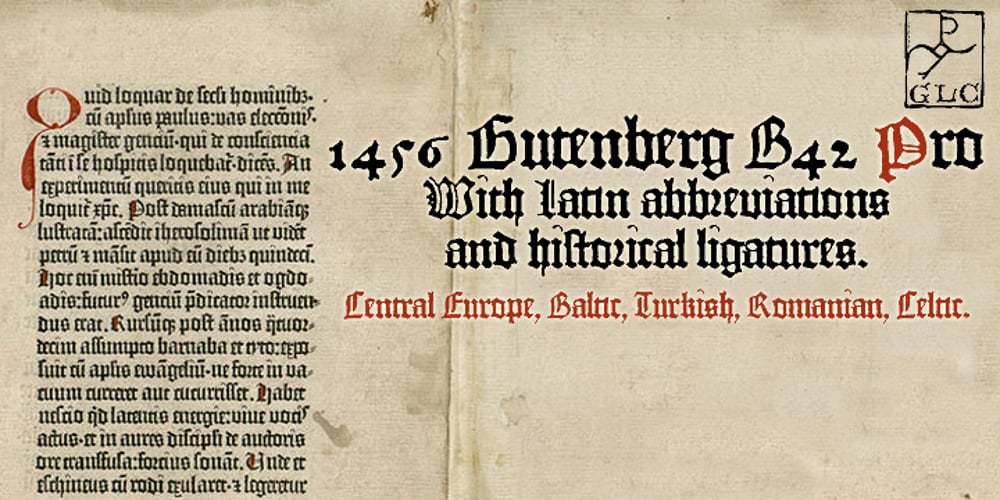
1456 Gutenberg B42 Pro Font Family was designed by published by GLC. 1456 Gutenberg B42 Pro contains 1 styles and family package options. Is it necessary to tell the Gutenberg story? 1456 Gutenberg Pro is the second Gutenberg typeface produced by GLC foundry (look at our 1456 Gutenberg). This font was created from the so called “B42” character set used for the two Gutenberg Latin Bibles (42 and 36 lines), but with a better and finer design than in our first version, more faithful to the finest original printed books appearance. We offer also now a larger choice of the original ligatures and Latin abbreviations, as complete as possible to be usable with OTF specifications. The complete basic alphabet (with “long s” naturally)is strictly looking like the real one (including the curious twisted “X”). We have only recreated the capitals W and J, who was not existing in the time. The numerals, no more existing in the original type set, were inspired from those in use a few years later by early following printers, but matching with the Gutenberg font’s pattern. The font includes West (including Celtic), East, Central European, Baltic and Turkish glyphs.